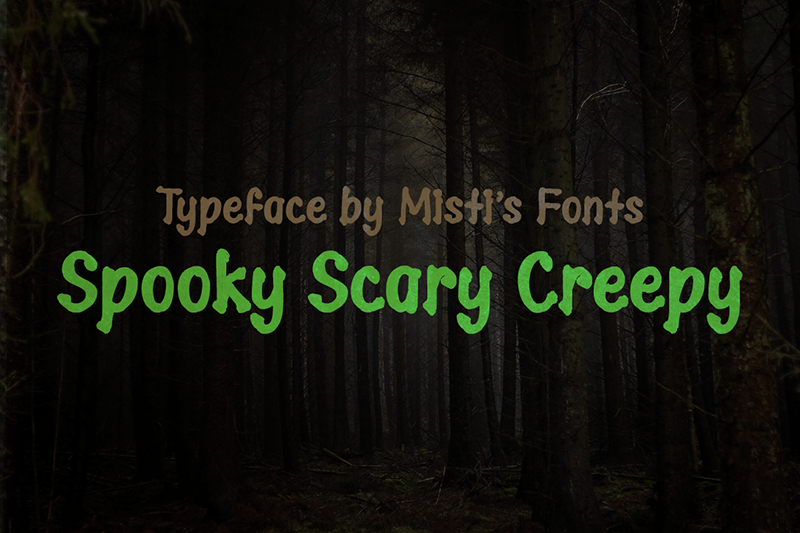
Preview and download Spooky Scary Creepy Font. Created by Misti's Fonts in Holiday Halloween styles with Free for personal use license.
Introducing Spooky Scary Creepy, the ultimate Halloween typeface! With its rough, distorted edges and eerie vibe, this font is perfect for adding a hauntingly fun touch to your seasonal projects. Great for posters, invitations, and spooky designs! Terms of Use and Commercial Licensing: https://mistifonts.com/spooky-scary-creepy/ |